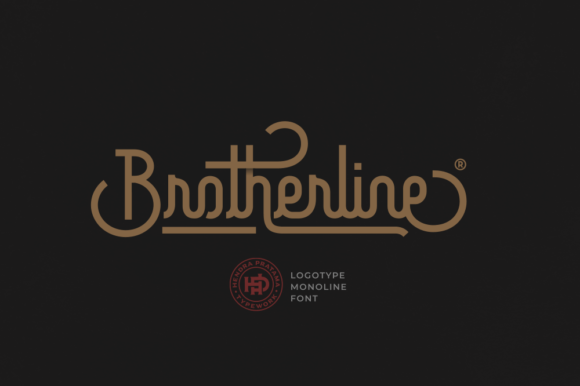
Adorn your designs with the captivating charm of Brotherline Font, a breathtaking handwritten script that dances across the page like a symphony of ink. Each character, meticulously crafted from a single bold mono-line, exudes a timeless elegance that harkens back to a bygone era. Yet, within its classicism lies a touch of contemporary flair, a subtle hint of modernity that keeps it feeling fresh and relevant.
Brotherline Font is the brainchild of hptypework, a renowned font foundry known for its exquisite attention to detail and unwavering commitment to quality. With Brotherline, they've created a font that is as versatile as it is beautiful, effortlessly adapting to a myriad of design projects. Whether you're crafting logos, branding materials, wedding invitations, or simply adding a touch of handwritten elegance to your personal projects, Brotherline Font is the perfect choice.
Step into a world of creativity as you explore the endless possibilities that Brotherline Font offers. Let your imagination soar as you create custom lettering tattoos that speak to your soul, capturing the essence of your individuality. The bold, flowing lines of Brotherline Font lend themselves perfectly to this art form, allowing you to express yourself in a way that is both unique and captivating.
With Brotherline Font, the possibilities are boundless. Its timeless charm will add a touch of sophistication to your designs, while its contemporary edge ensures that your work remains relevant and eye-catching. Embark on a creative journey with Brotherline Font, and discover the limitless possibilities that await you.